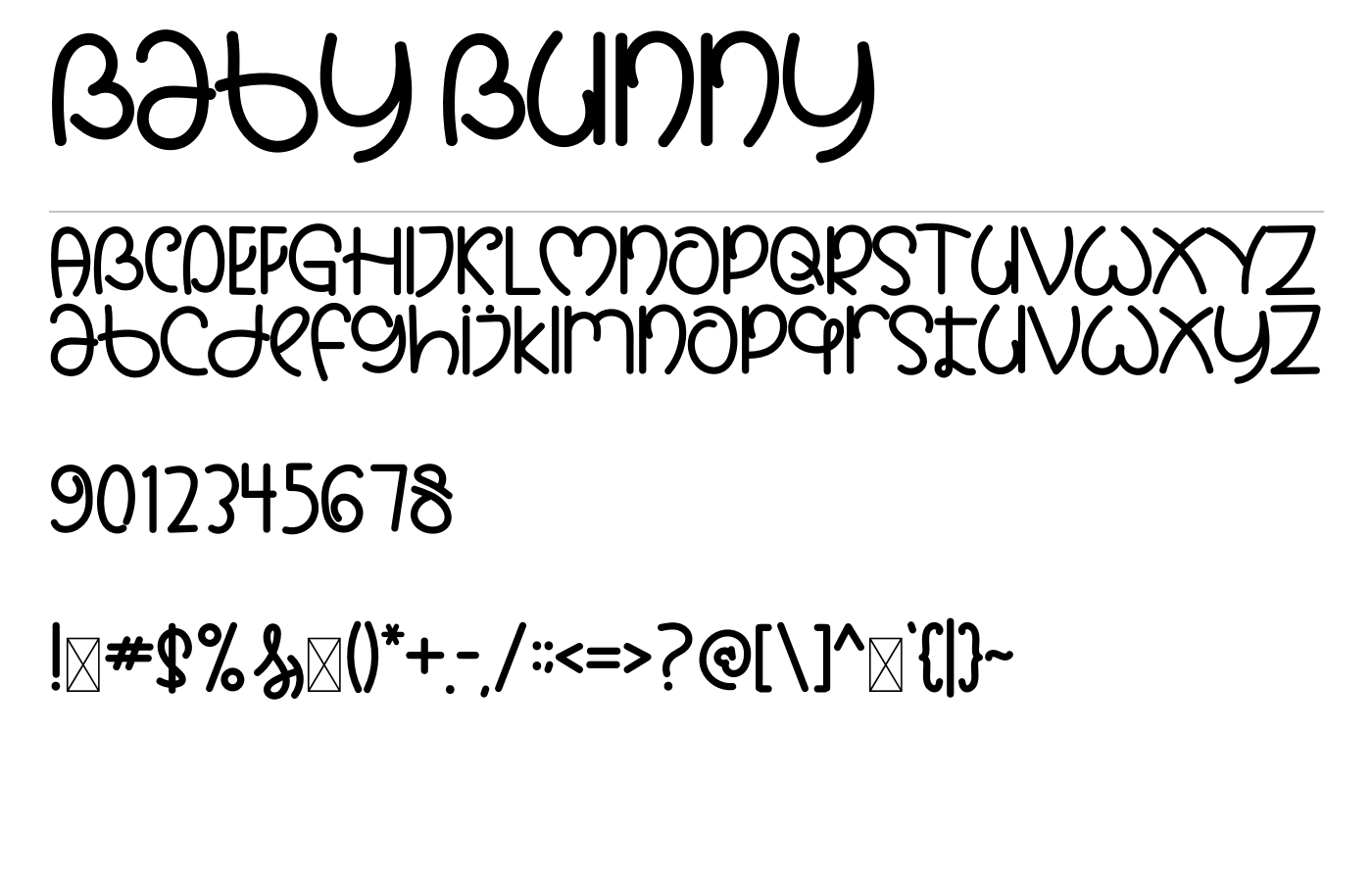
Baby Bunny is a playful, rounded sans-serif font with a whimsical, hand-drawn feel that adds charm and friendliness to any design. Its consistent stroke weight, unusual letter shapes, and slightly condensed forms make it perfect for children's books, logos, and fun branding that seeks a unique, approachable personality. This font works well in headlines and display uses where a lighthearted, casual style is desired.
Baby Bunny Font